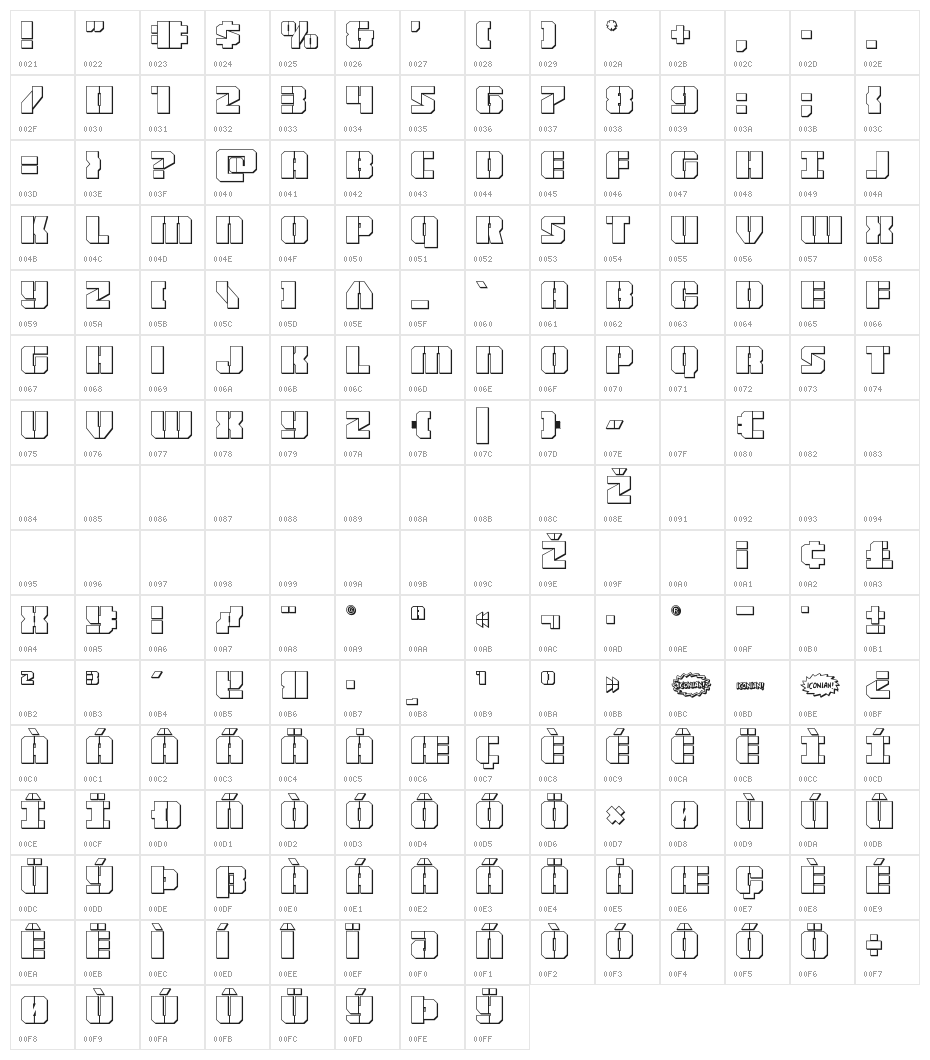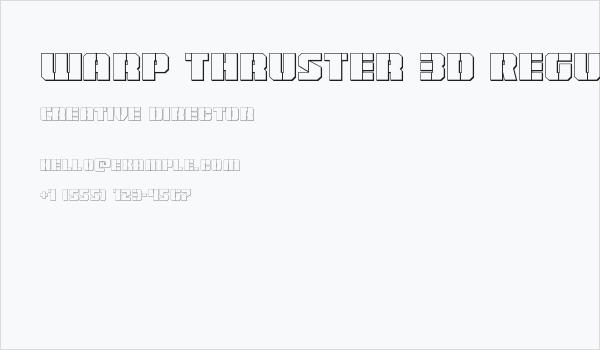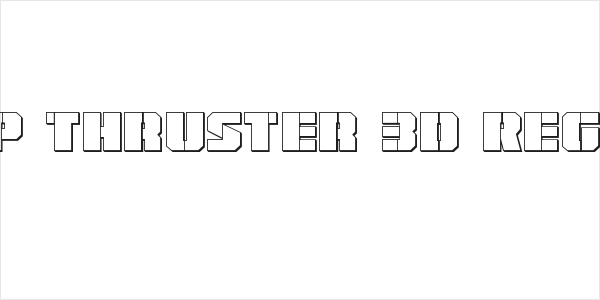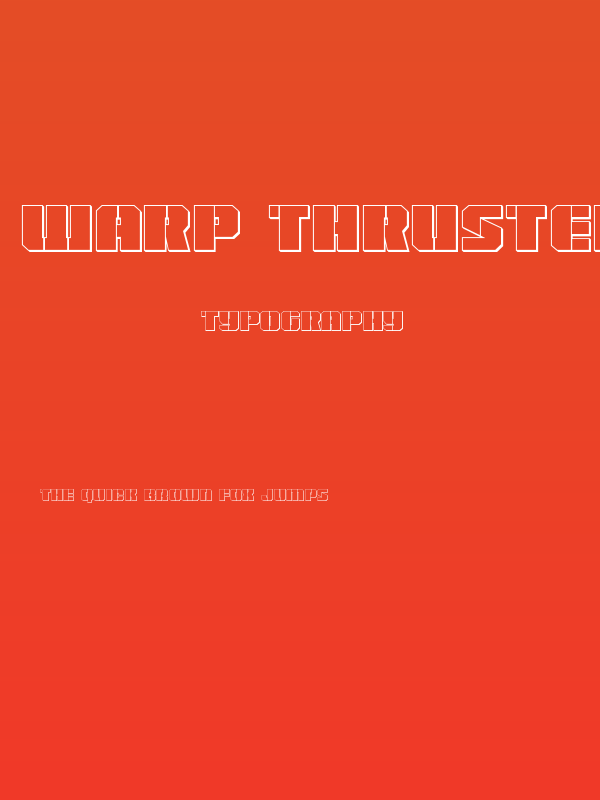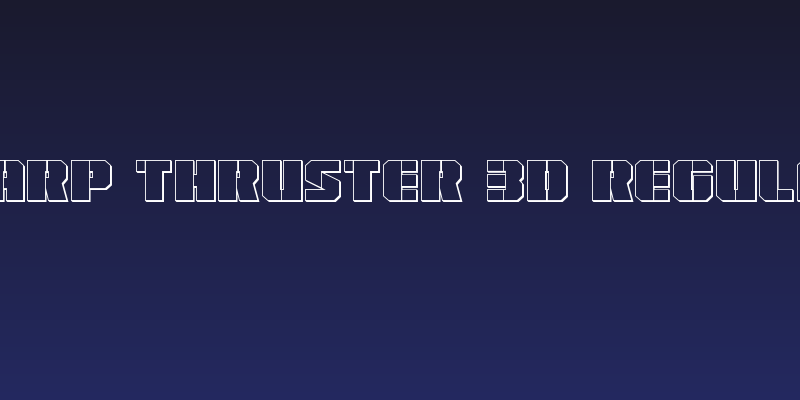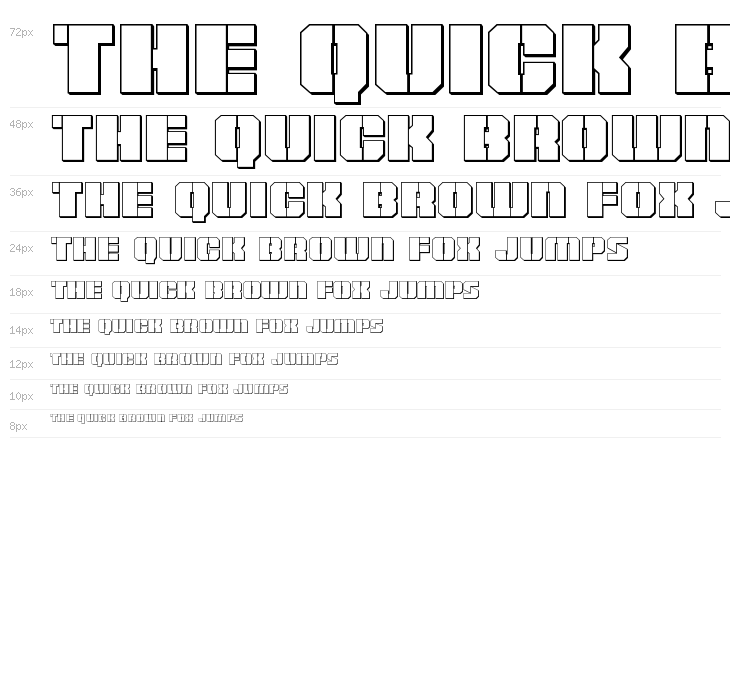
Warp Thruster 3D Regular Font
Warp Thruster 3D Regular Description
This font features a bold, three-dimensional design with a futuristic and geometric aesthetic. Each character is constructed with thick, angular lines that create a sense of depth and dimension, making it appear as though the letters are extruding from the page. The style is consistent across uppercase and lowercase letters, as well as numbers and special characters, maintaining a uniform look. The font's structure is blocky and robust, with sharp edges and a mechanical feel. This design is particularly eye-catching and would stand out in any visual context, offering a modern and dynamic appearance.
| Proposed Projects | Ideal for sci-fi themed projects, video game titles, posters, and branding that requires a modern, tech-inspired look. |